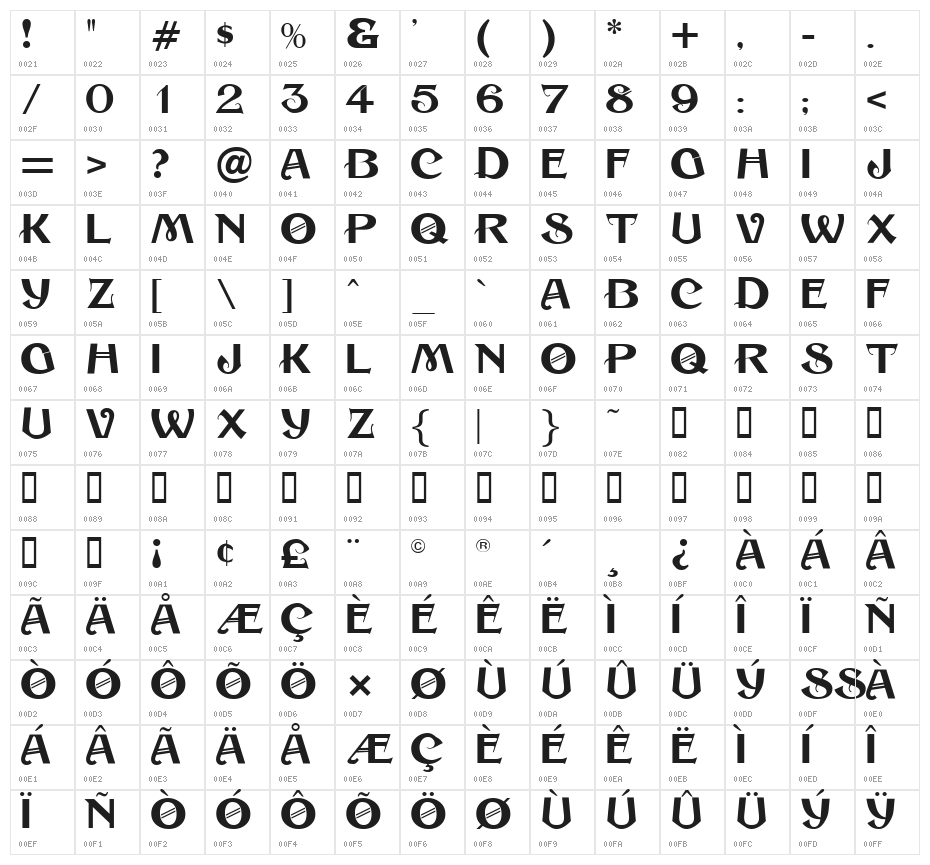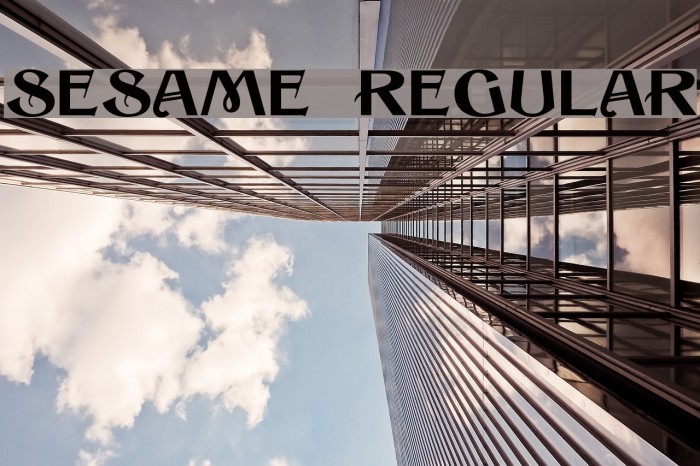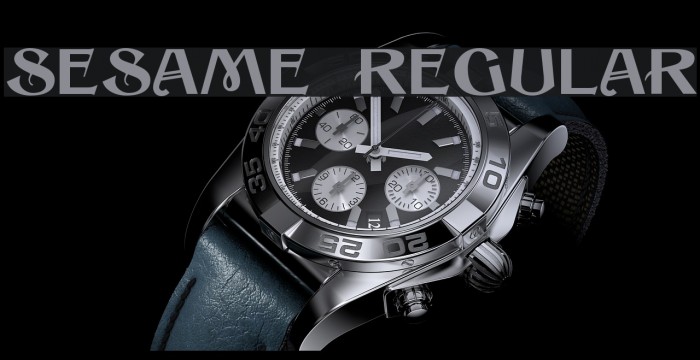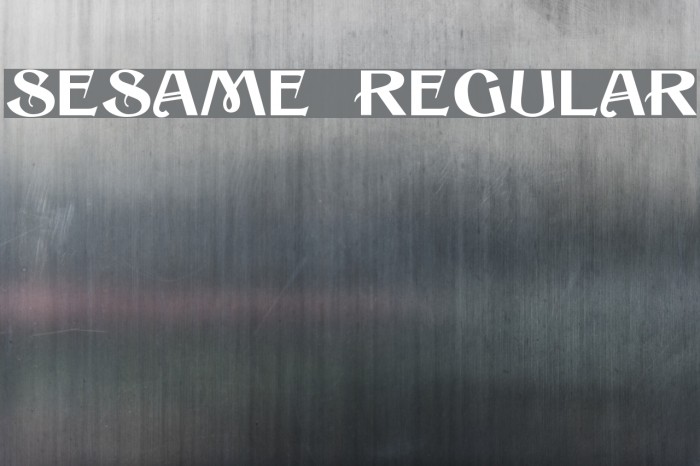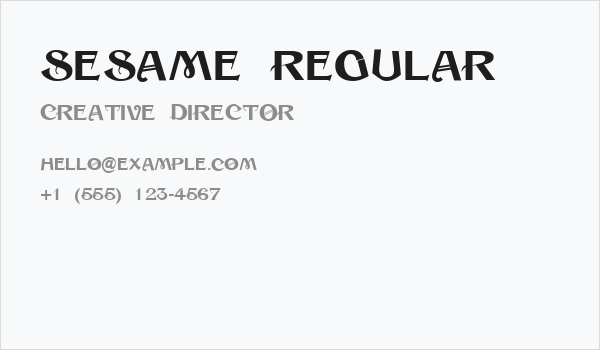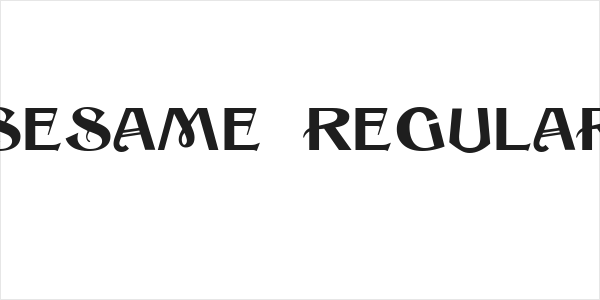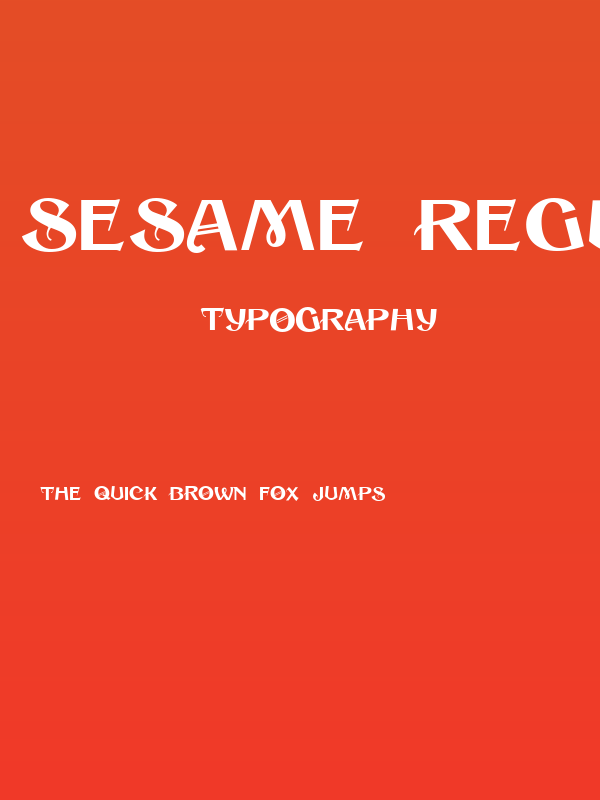
Sesame Regular Font
Sesame Regular Description
This font features a unique and decorative style with a playful twist. The characters exhibit a bold and dynamic presence, with each letter incorporating distinctive curves and flourishes that add a whimsical touch. The uppercase letters are particularly striking, with exaggerated serifs and bold strokes that create a sense of movement and energy. The numerals and special characters maintain this decorative theme, ensuring consistency across all glyphs. This font's design is both eye-catching and memorable, making it suitable for creative and artistic projects.